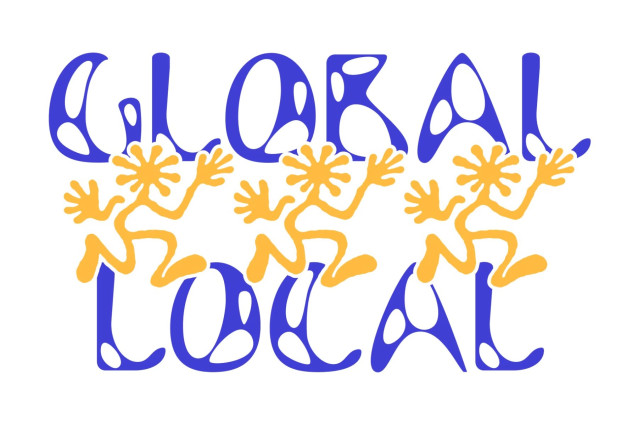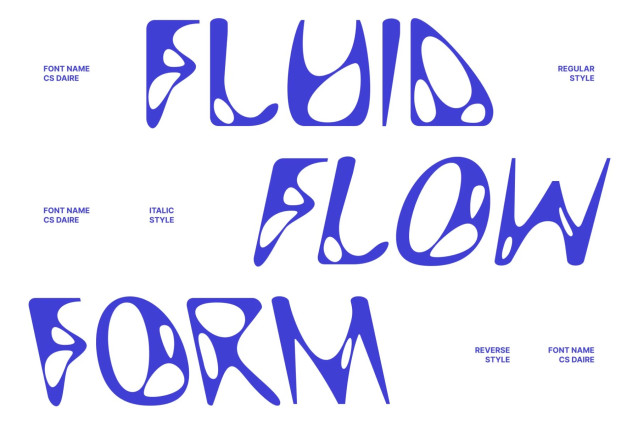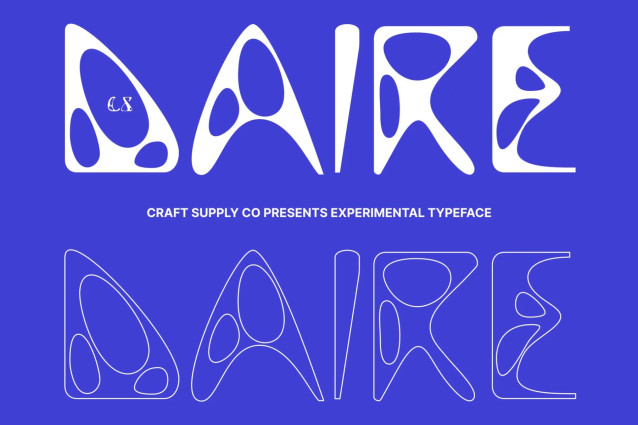
CS Daire – Experimental Font
CS Daire – Experimental Display Font: Where Quirky Creativity Meets Modern Expression
Uniquely Crafted Letterforms with Creative Energy
This is a modern experimental display font designed with quirky and unconventional letterforms that instantly capture attention. Each character is uniquely crafted, creating a playful visual rhythm full of personality and imagination. Its expressive forms turn typography into a creative statement, making every composition feel fresh, lively, and visually engaging.
Experimental Design with Distinctive Character
This font delivers a typographic experience that feels innovative and original. The unusual structure and dynamic proportions create a standout appearance that encourages creativity and exploration. Every letter carries its own charm, giving the font a memorable and highly distinctive identity.
Playful Style for Bold Visual Impact
This font makes it ideal for designs that aim to feel fun, energetic, and expressive. Its strong display presence allows it to perform beautifully in attention-grabbing compositions while maintaining enough clarity for effective communication.